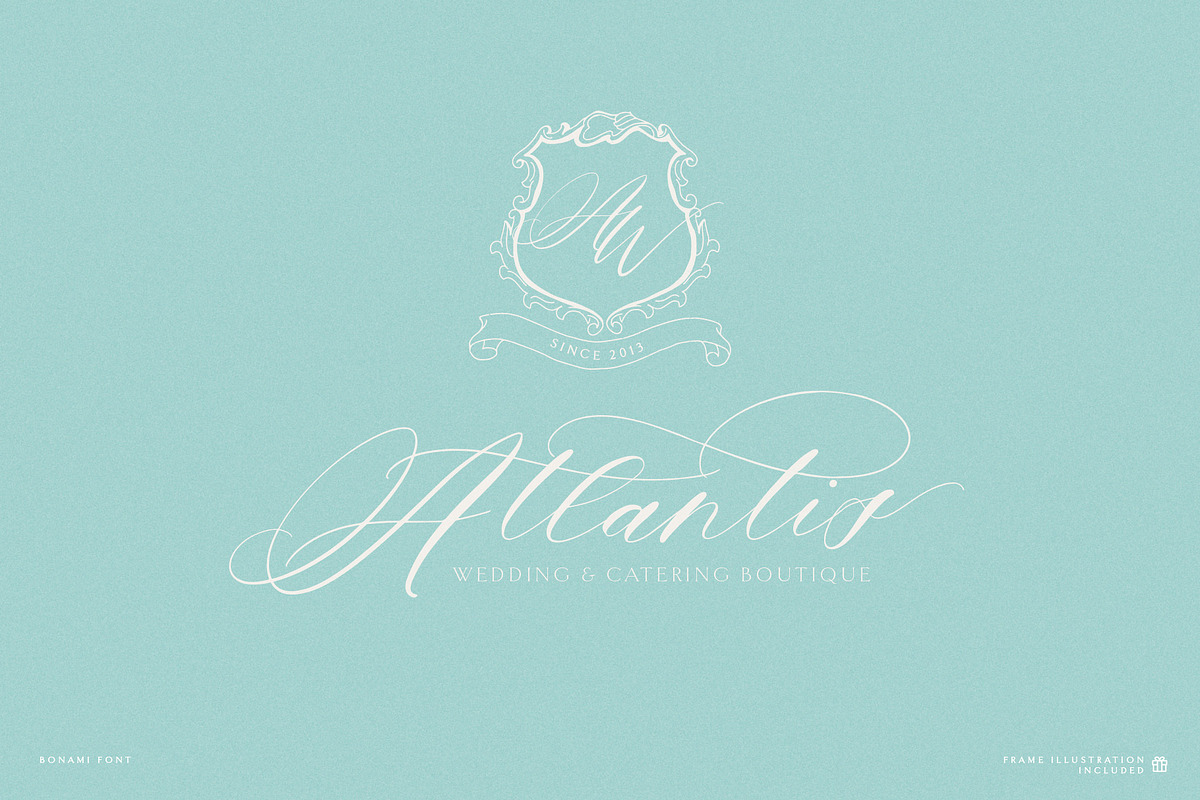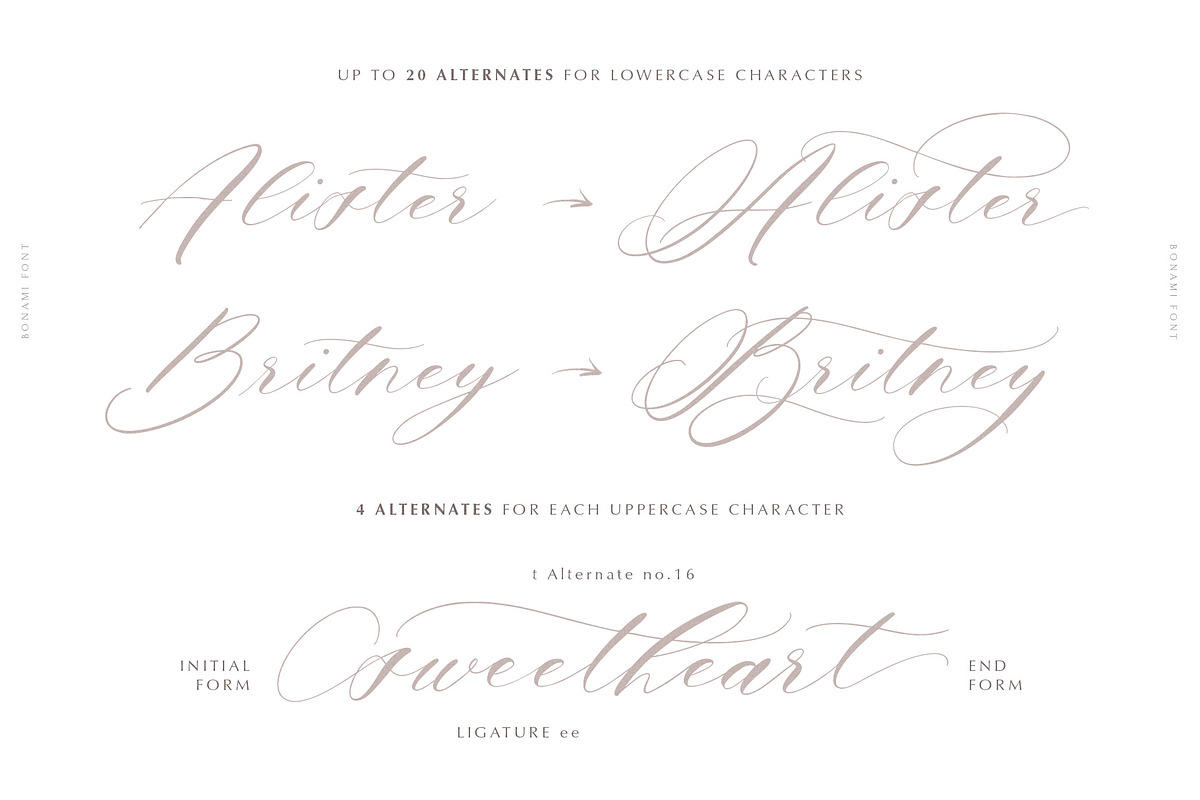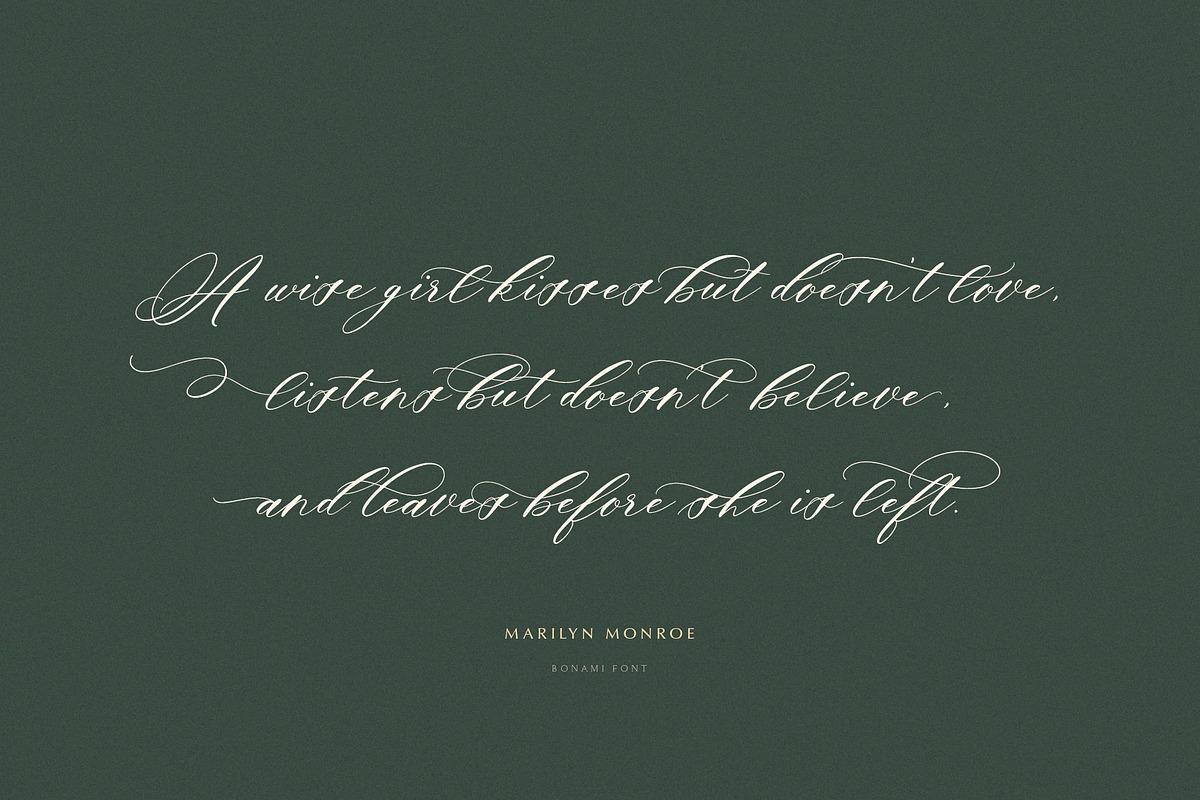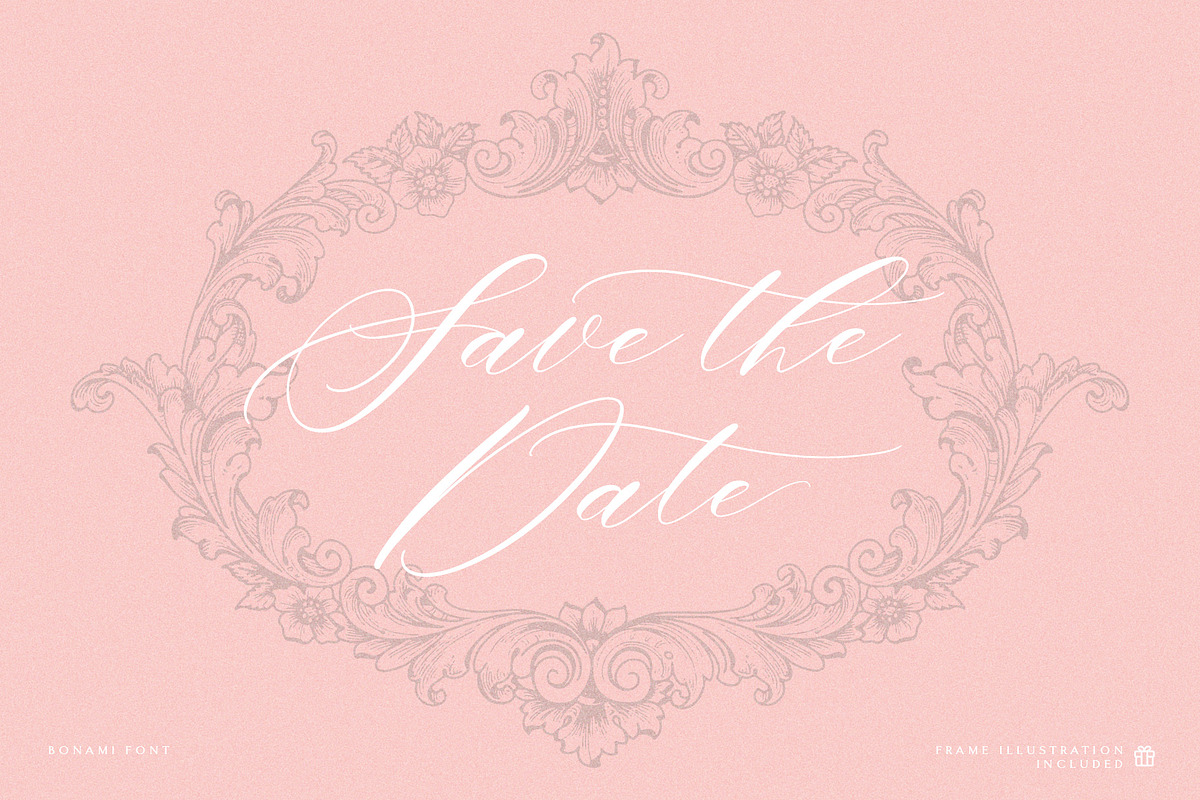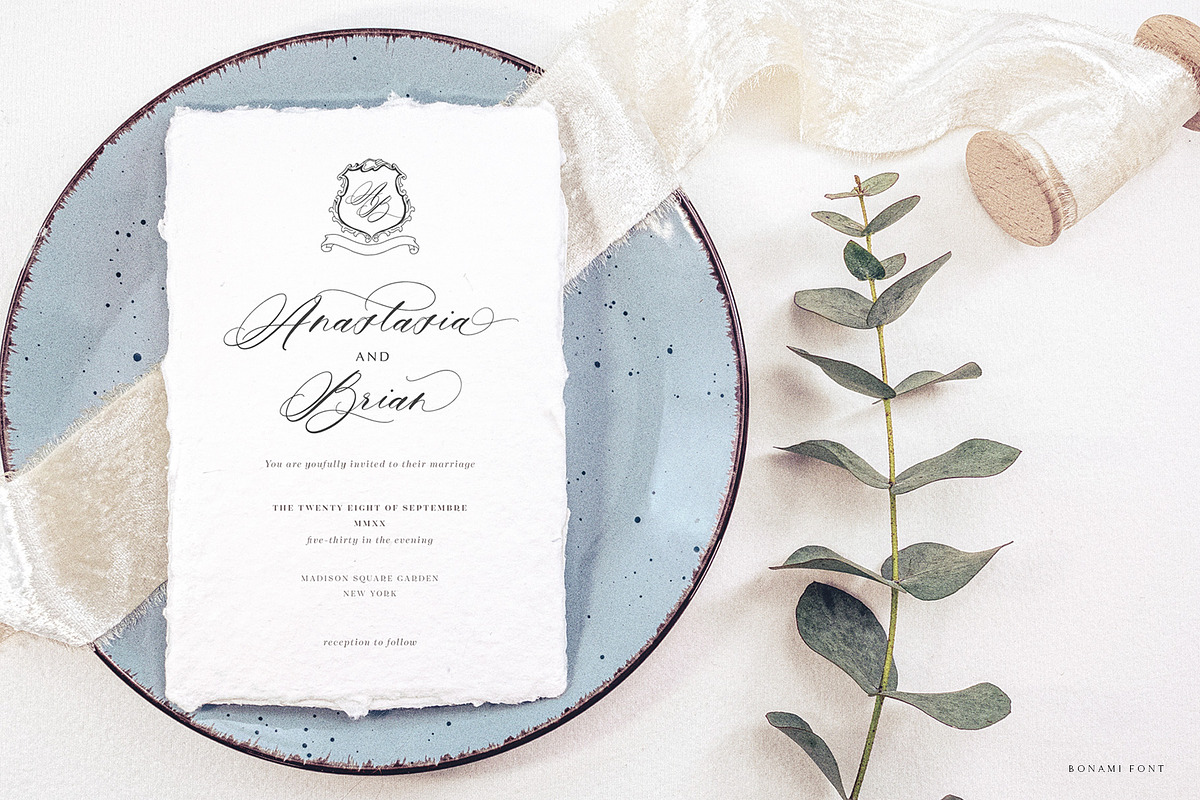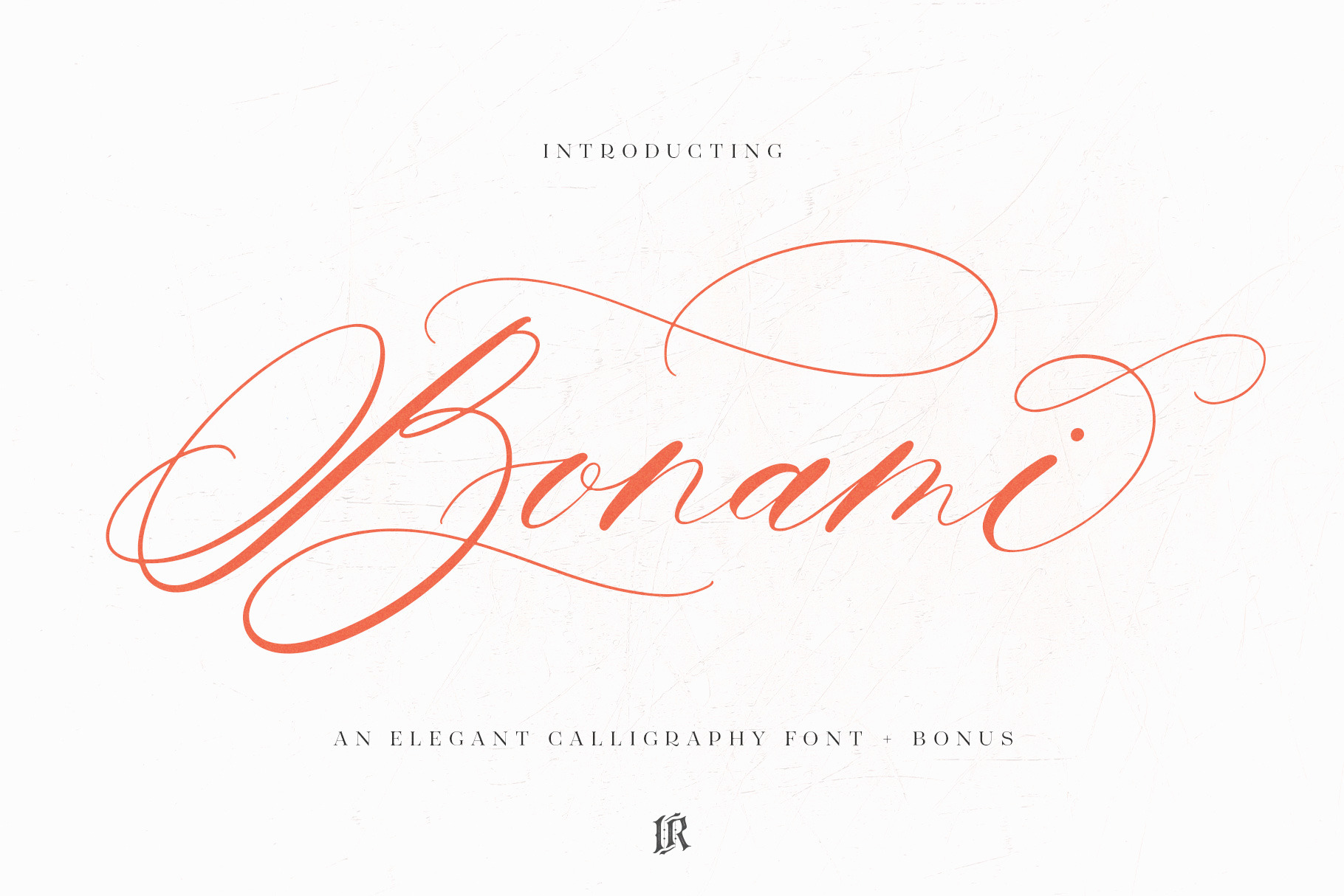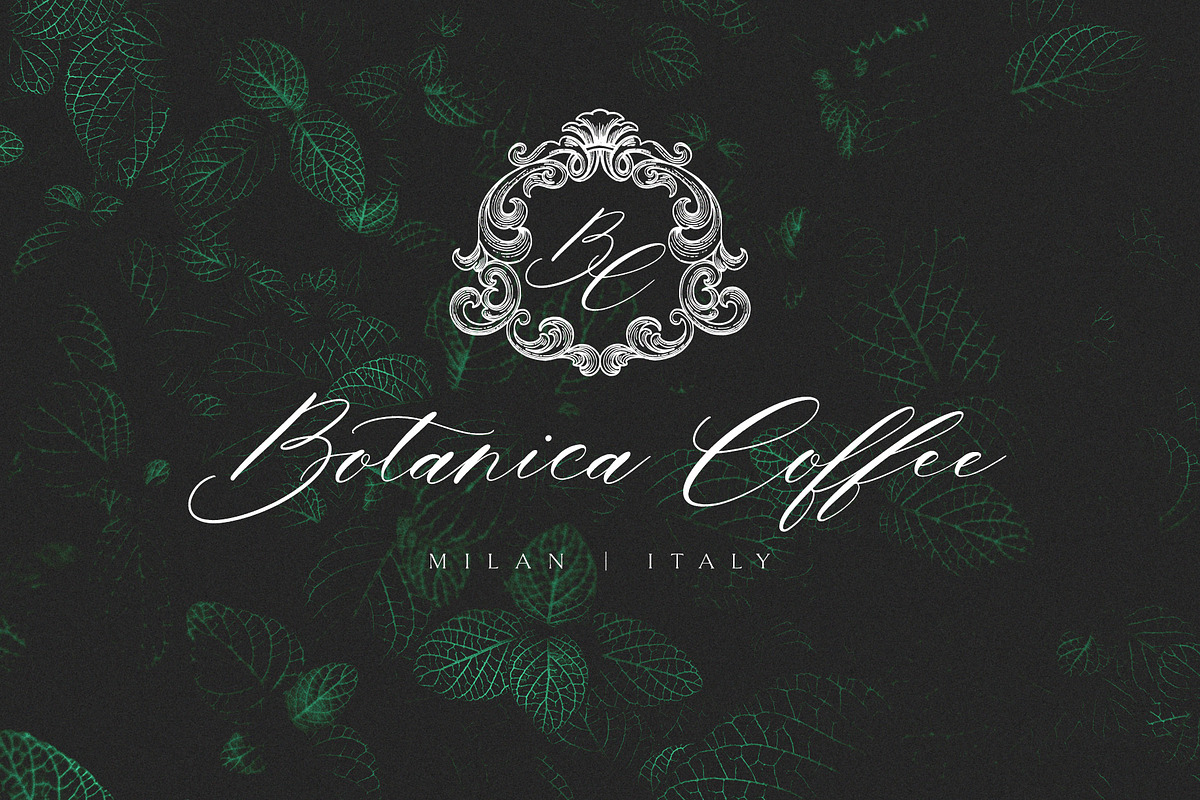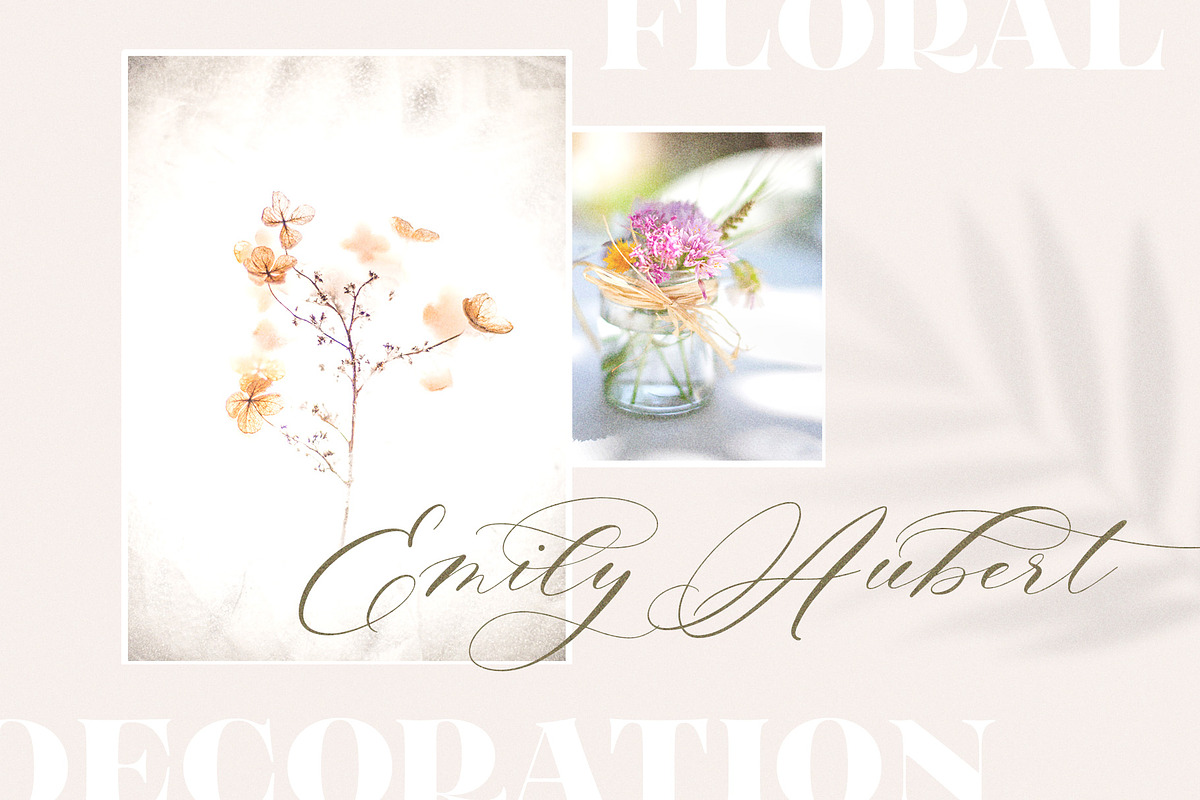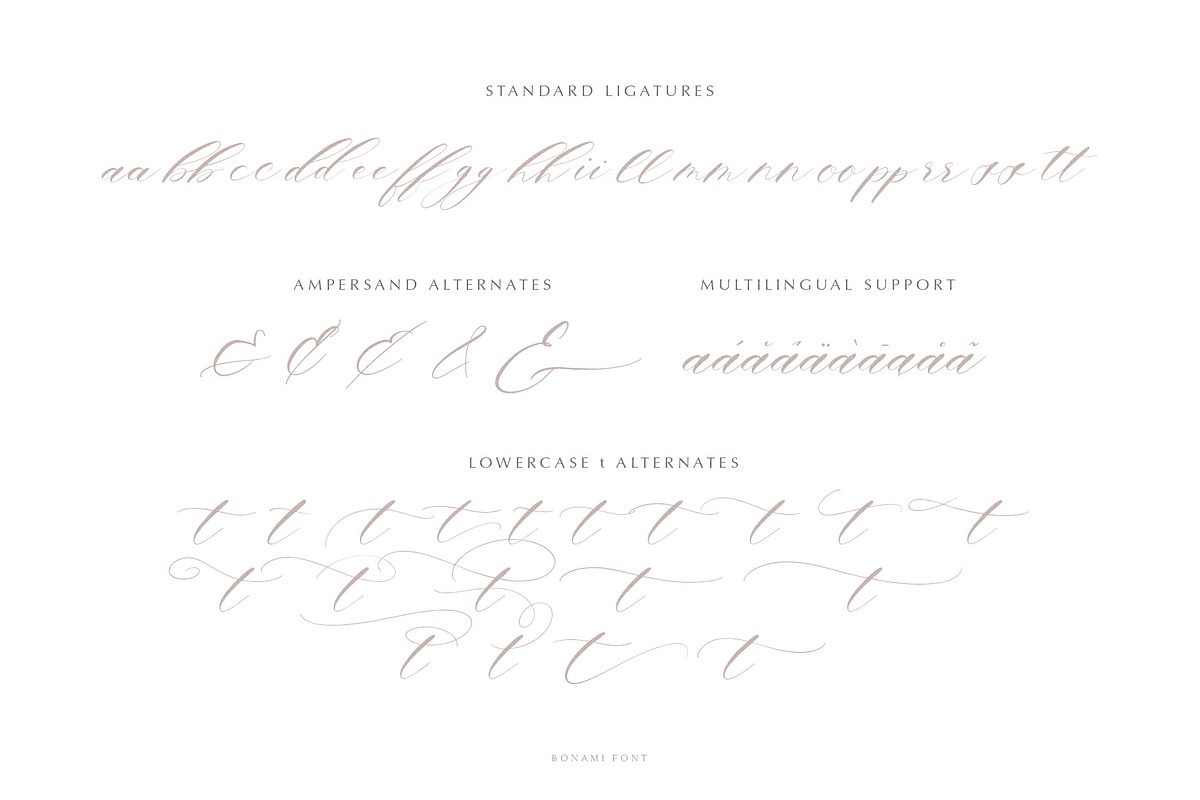
Bonami Font
Bonami Font is a modern calligraphy font with many alternative characters and ligatures. Bonami font includes multilingual support for Western and Central Europe. These are ideal for blog website, logos. instagram, branding, invitations, business cards, weddings and many more.
This hand-lettered font comes with 4 up to 20 alternates for both uppercase and lowercase characters, beginning and ending swashes and ligarures for different styles.